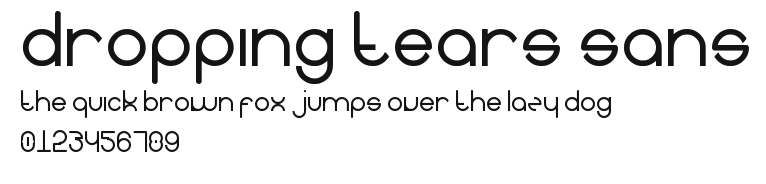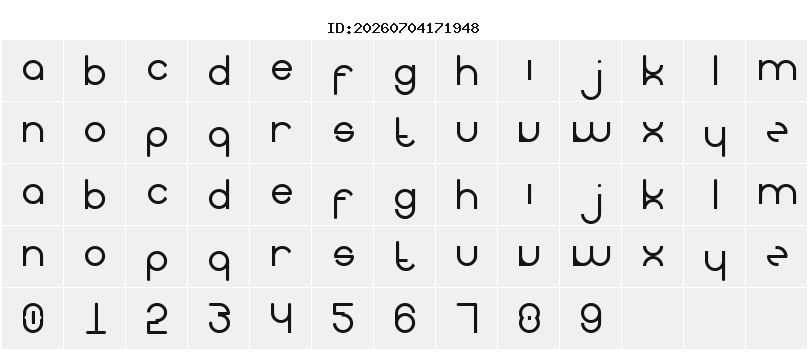
Dropping tears sans.ttf is a modern, elegant sans-serif font designed for ultimate readability and visual harmony. Perfect for branding, headlines, web design, and print materials.